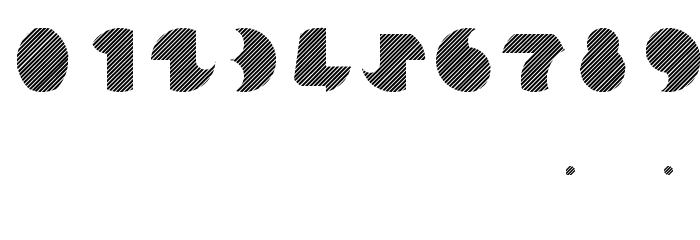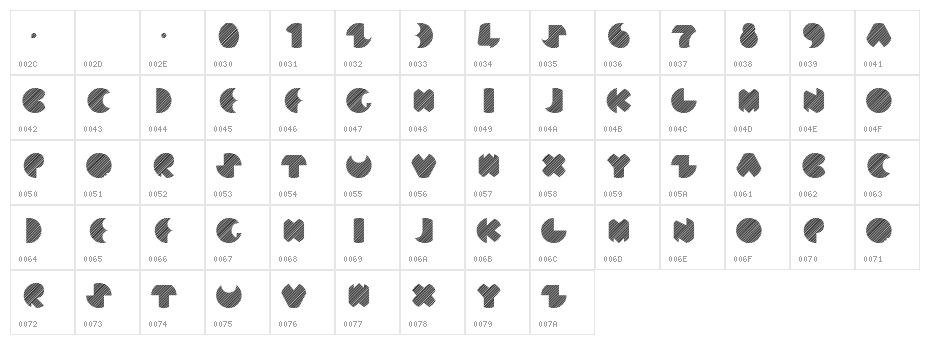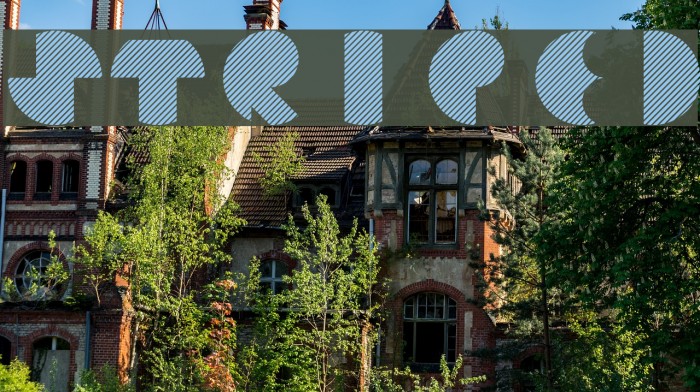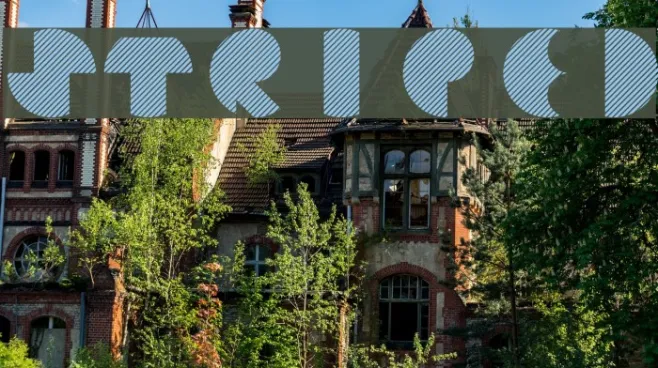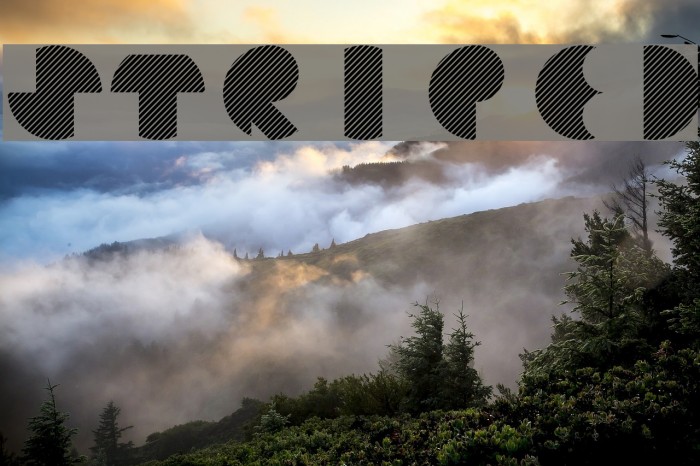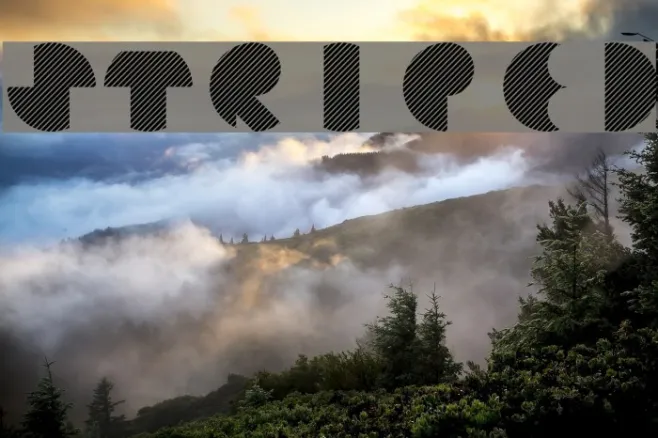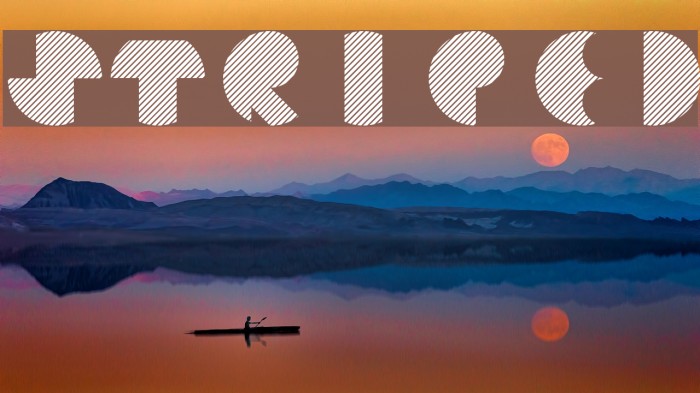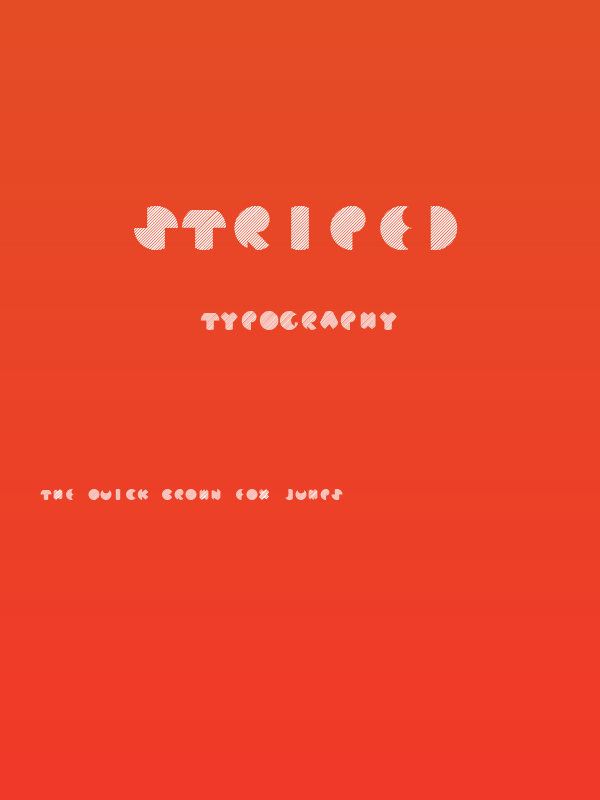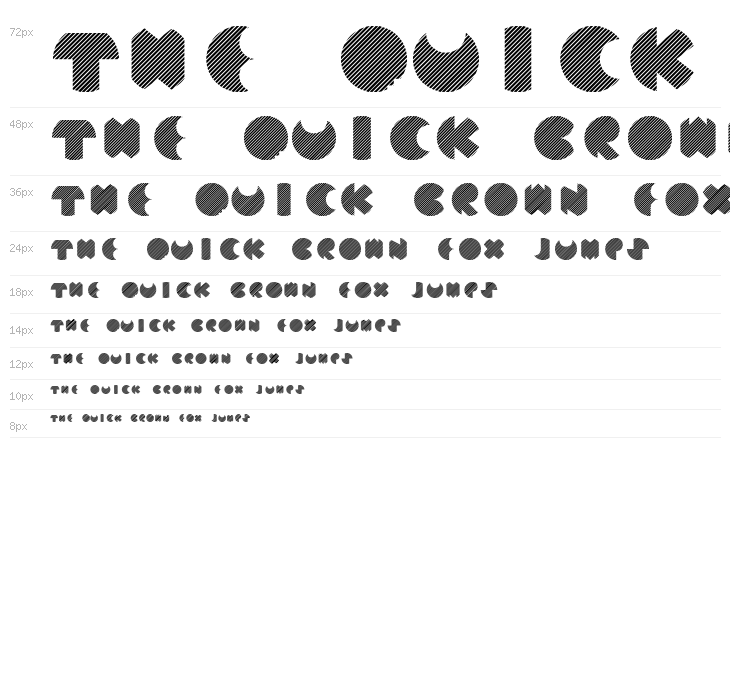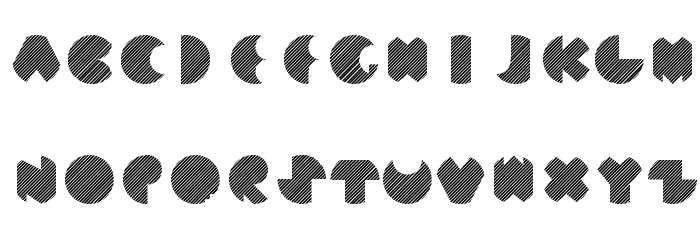
Striped Font
Striped Description
This font features a bold, geometric design with a unique striped pattern filling each character. The letters are constructed with solid, angular shapes that give a modern and edgy appearance. The stripes within each character create a sense of movement and texture, making the font stand out. The uppercase and lowercase letters maintain a consistent style, while the numbers and special characters complement the overall aesthetic. This font is highly decorative and makes a strong visual impact, suitable for eye-catching designs.
| Proposed Projects | Ideal for branding, posters, headlines, and any project requiring a striking, modern typeface. |